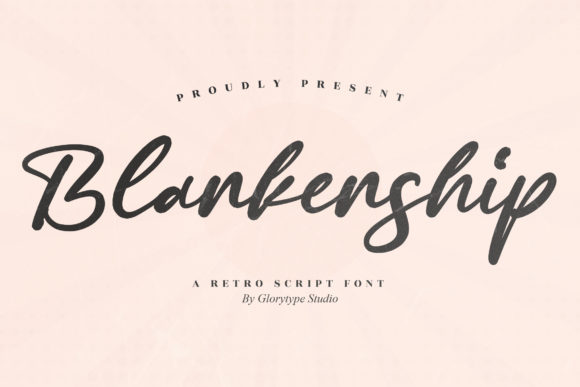
Unleash the Elegance: Blankenship Script Font - A Stroke of Creative Brilliance
In the realm of typography, where artistry meets functionality, Blankenship emerges as a captivating script font, ready to transform your creative visions into tangible masterpieces. Experience the allure of a font that embodies grace, sophistication, and timeless beauty.
Immerse yourself in the world of Blankenship, a meticulously crafted script font that exudes elegance and refinement. Its delicate strokes, reminiscent of a skilled calligrapher's hand, lend an air of sophistication to any design project. Whether you're a seasoned designer or a creative enthusiast seeking to elevate your projects, Blankenship is the perfect font to ignite your imagination.
Blankenship's versatility shines in a myriad of creative applications. Let your designs bloom with charm as you incorporate this exquisite font into logos, t-shirt designs, marketing materials, and more. Its adaptability extends to diverse industries, from fashion and beauty to lifestyle and beyond. Unleash the boundless potential of Blankenship and witness how it transforms your creations into captivating works of art.
Discover the magic of Blankenship and unlock a world of creative possibilities. Each character, meticulously designed and perfectly spaced, dances across the digital canvas, captivating the audience with its effortless flow and captivating style. Embrace the allure of Blankenship and embark on a journey of creative exploration, pushing the boundaries of design and leaving an indelible mark on your audience.